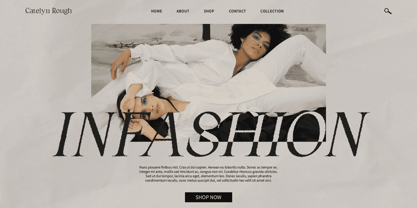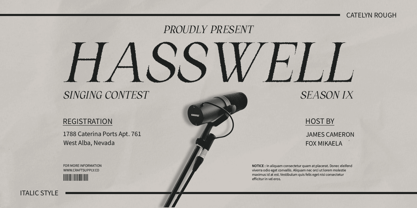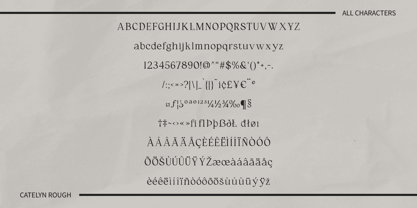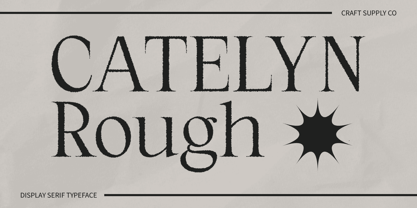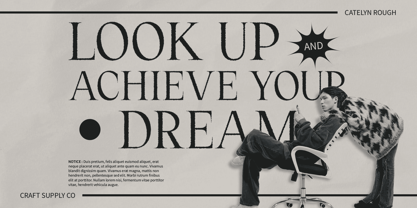
Catelyn Rough
par Craft Supply Co
La famille de polices Catelyn Rough a été conçue par Trio Nazzar Saputra, Wahyu Hadi Yuana et publiée par Craft Supply Co. Catelyn Rough contient 2 styles et options de package familial.
Catelyn Rough: Where Elegance Meets Edge
Elegant Rough Serif Font
Catelyn Rough is a modern serif font that beautifully balances elegance with a rugged vibe. Perfect for creating eye-catching displays, this font adds a sophisticated yet bold touch to your designs.
Modern Serif with a Rough Twist
With its elegant serif design and rough texture, Catelyn Rough offers a unique and captivating twist on traditional serif fonts. The blend of refined lines and rugged edges creates a visually striking and dynamic look, ideal for posters, invitations, and other projects that need a touch of sophistication and strength.
Perfect for Striking Displays
Whether you’re designing a flyer for an upscale event or creating packaging for a premium product, Catelyn Rough is sure to make an impact. Its stylish design and rough texture make it perfect for displays that demand attention and convey a sense of elegance with an edge.
Versatile and Easy to Use
Despite its distinctive appearance, Catelyn Rough is versatile and easy to use. The font works well in both large and small sizes, making it suitable for a variety of applications, from headlines and banners to logos and more. With its blend of modern elegance and rough vibe, Catelyn Rough adds a captivating and dynamic touch to any design.